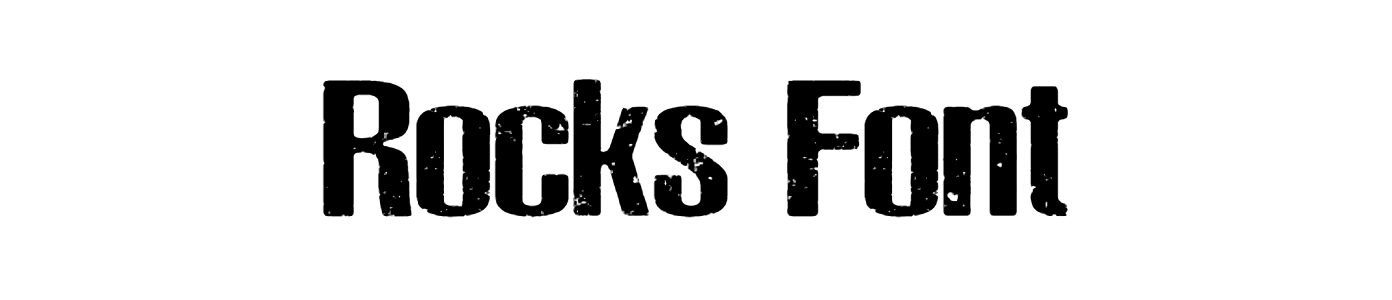
Rocks
- Width: Ultra-condensed
What You Can Type With Rocks
You get every letter from A to Z in both cases and all the numbers from 0 to 9, which means Rocks can handle full sentences, dates and prices. Punctuation is limited, so look at the character map if you need a specific symbol. It also has the accented letters you need for Spanish, French, German, Portuguese and Italian.
Where Rocks Works Best
Rocks is a natural fit for posters, logos and eye-catching headlines. Because the letters are narrow, long words fit in tight spaces like book spines, banners and video thumbnails. Use it for one standout word or headline and let simpler fonts handle the rest.
Does Rocks support accented letters?
Yes. Rocks includes the accented letters needed for Spanish, French, German, Portuguese and Italian, so it works for more than just English.